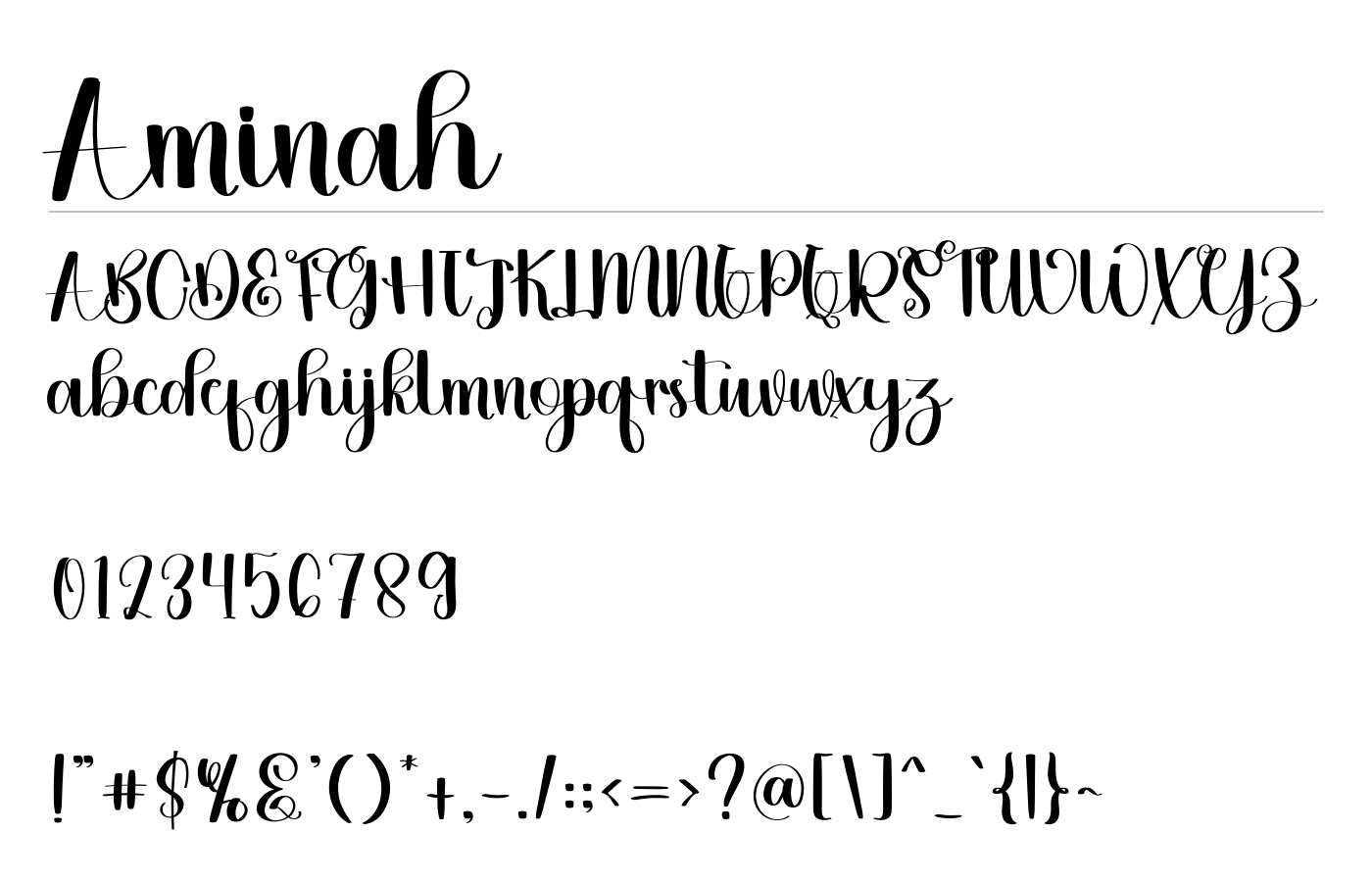
Aminah is a stylish script font that combines elegant, flowing letterforms with playful, decorative swashes, making it perfect for creative and feminine designs. Its medium weight and moderately tall x-height ensure readability while its unique curls and flourishes add a charming and sophisticated touch, ideal for branding, invitations, and headlines that want to convey warmth and personality. This font works best where a graceful yet approachable look is desired, such as fashion, wedding stationery, and boutique packaging.
Aminah Font
About Aminah Font